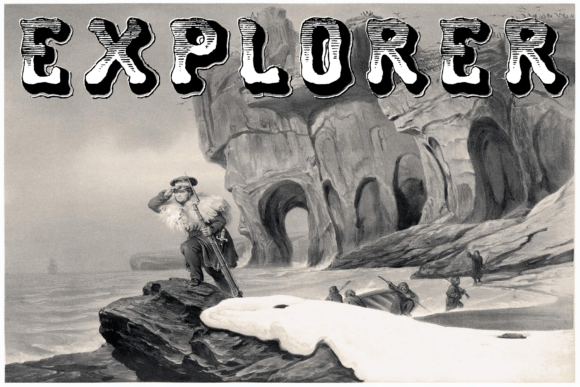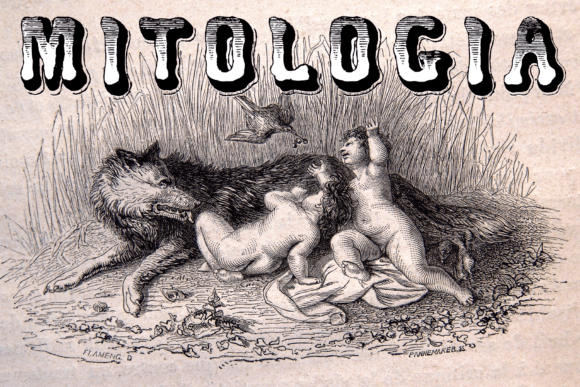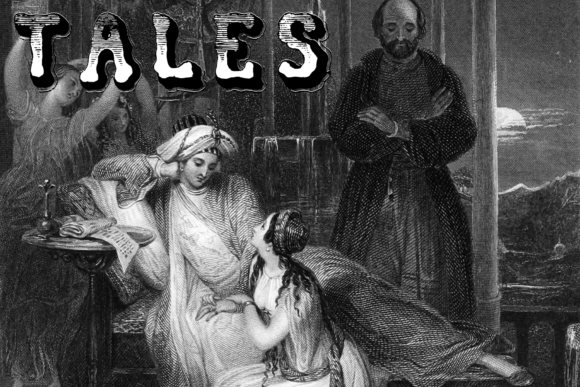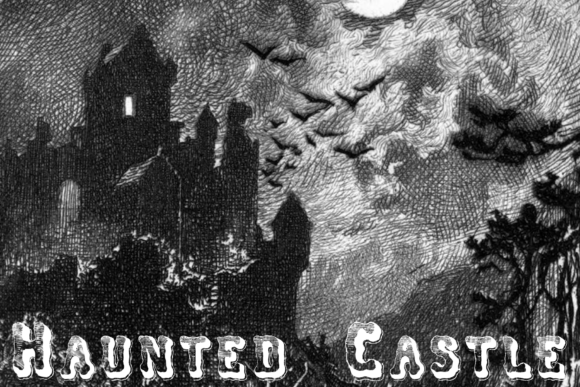
Cripto Font: Unleash the Vintage Charm with a Gritty Edge
In the world of typography, fonts play a crucial role in conveying the tone and personality of a design. For creative projects that require a unique touch of old-world charm, Cripto Font is an excellent choice. This textured, hand-drawn font is designed to add a gritty edge to your designs, making it perfect for logos, posters, book covers, and antique-style branding.
The Unique Characteristics of Cripto Font
Cripto Font boasts a distinctive, hand-drawn design that sets it apart from other fonts. Its textured appearance gives it a worn, vintage look that’s reminiscent of classic typography. The font’s detailed design ensures that every letter, number, and symbol is crafted with precision, making it an excellent choice for designs that require a high level of intricacy.
Uses of Cripto Font
Cripto Font is an incredibly versatile font that can be used in a variety of creative projects. Here are some of the ways you can use Cripto Font to add a touch of vintage charm to your designs:
- Logos: Create a unique and memorable logo for your business or brand with Cripto Font. Its textured appearance and hand-drawn design make it perfect for logos that require a vintage or distressed look.
- Posters: Add a touch of old-world charm to your posters with Cripto Font. Its gritty edge and detailed design make it perfect for posters that require a bold and eye-catching typography.
- Book Covers: Give your book cover a vintage makeover with Cripto Font. Its textured appearance and hand-drawn design make it perfect for book covers that require a classic and sophisticated look.
- Antique-Style Branding: Create a brand identity that exudes vintage charm with Cripto Font. Its unique design and textured appearance make it perfect for brands that require a distinctive and memorable typography.
Benefits of Using Cripto Font
Using Cripto Font in your designs offers several benefits, including:
- Unique Design: Cripto Font’s hand-drawn design and textured appearance make it a unique and distinctive font that’s sure to set your designs apart.
- Vintage Charm: Cripto Font’s vintage charm and gritty edge make it perfect for designs that require an old-world, artistic flair.
- Versatility: Cripto Font is an incredibly versatile font that can be used in a variety of creative projects, from logos and posters to book covers and antique-style branding.
- Easy to Read: Despite its textured appearance, Cripto Font is easy to read, making it perfect for designs that require a clear and legible typography.
Tips for Using Cripto Font
Here are some tips for using Cripto Font in your designs:
- Use it sparingly: Cripto Font’s textured appearance and hand-drawn design make it a bold and eye-catching font. Use it sparingly to avoid overwhelming your design.
- Experiment with colors: Cripto Font’s vintage charm and gritty edge make it perfect for designs that require a bold and contrasting color scheme. Experiment with different colors to find the perfect combination for your design.
- Pair it with other fonts: Cripto Font can be paired with other fonts to create a unique and memorable typography. Experiment with different font combinations to find the perfect pairing for your design.
Cripto Font is a unique and versatile font that’s perfect for designs that require a vintage charm with a gritty edge. Its hand-drawn design, textured appearance, and detailed design make it an excellent choice for logos, posters, book covers, and antique-style branding. With its ease of use and versatility, Cripto Font is a must-have font for designers and crafters looking to add a touch of old-world charm to their designs.